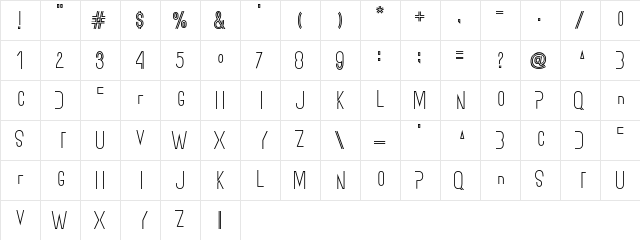
Ostrich Sans Stack Regular
Design Context for Ostrich Sans Stack Typeface
Ostrich Sans Stack is a composed and adaptable typeface that performs quietly and consistently across a wide range of design contexts.
Pro Tip: Use Ostrich Sans Stack in both headline and body roles to test its range before committing to a single application.